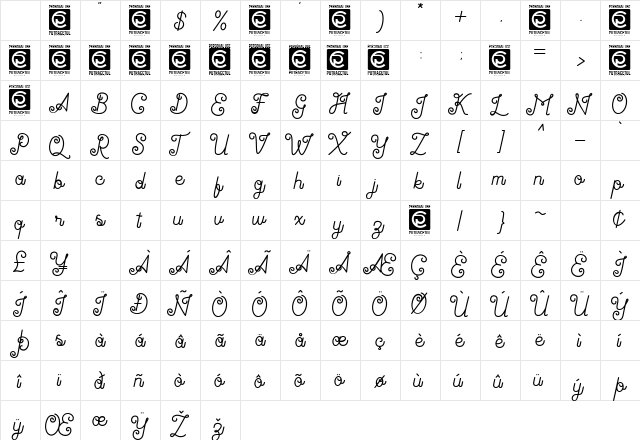
Complete Antiqueline FreeVersion glyph index. Displaying only characters natively supported by Antiqueline FreeVersion font.
Antiqueline wears its vintage influences proudly, with letterforms that recall mid-century signage, classic packaging, and nostalgia-driven design.
Font Pairing: Combine Antiqueline with a simple slab or neutral sans - period-accurate companions reinforce the vintage feel without competing for attention.
Pro Tip: Lean into Antiqueline's period character by pairing it with aged paper textures, muted colour palettes, and vintage illustration styles.